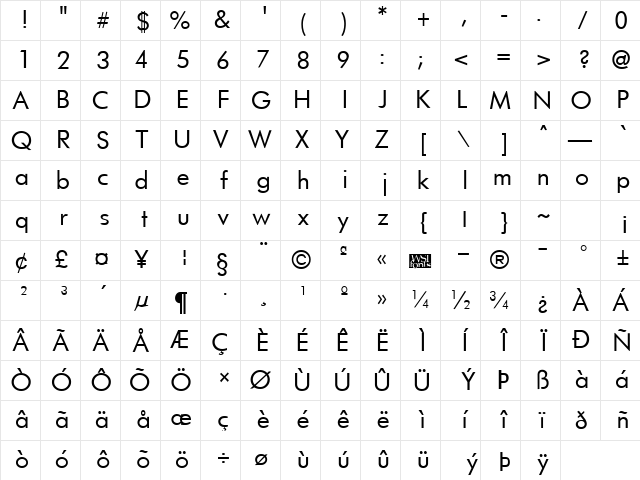
Fulton FixedWidth Regular
Complete Fulton FixedWidth Regular glyph index. Displaying only characters natively supported by Fulton FixedWidth Regular font.
Design Context for Fulton FixedWidth
Fulton FixedWidth is a composed and adaptable typeface that performs quietly and consistently across a wide range of design contexts.